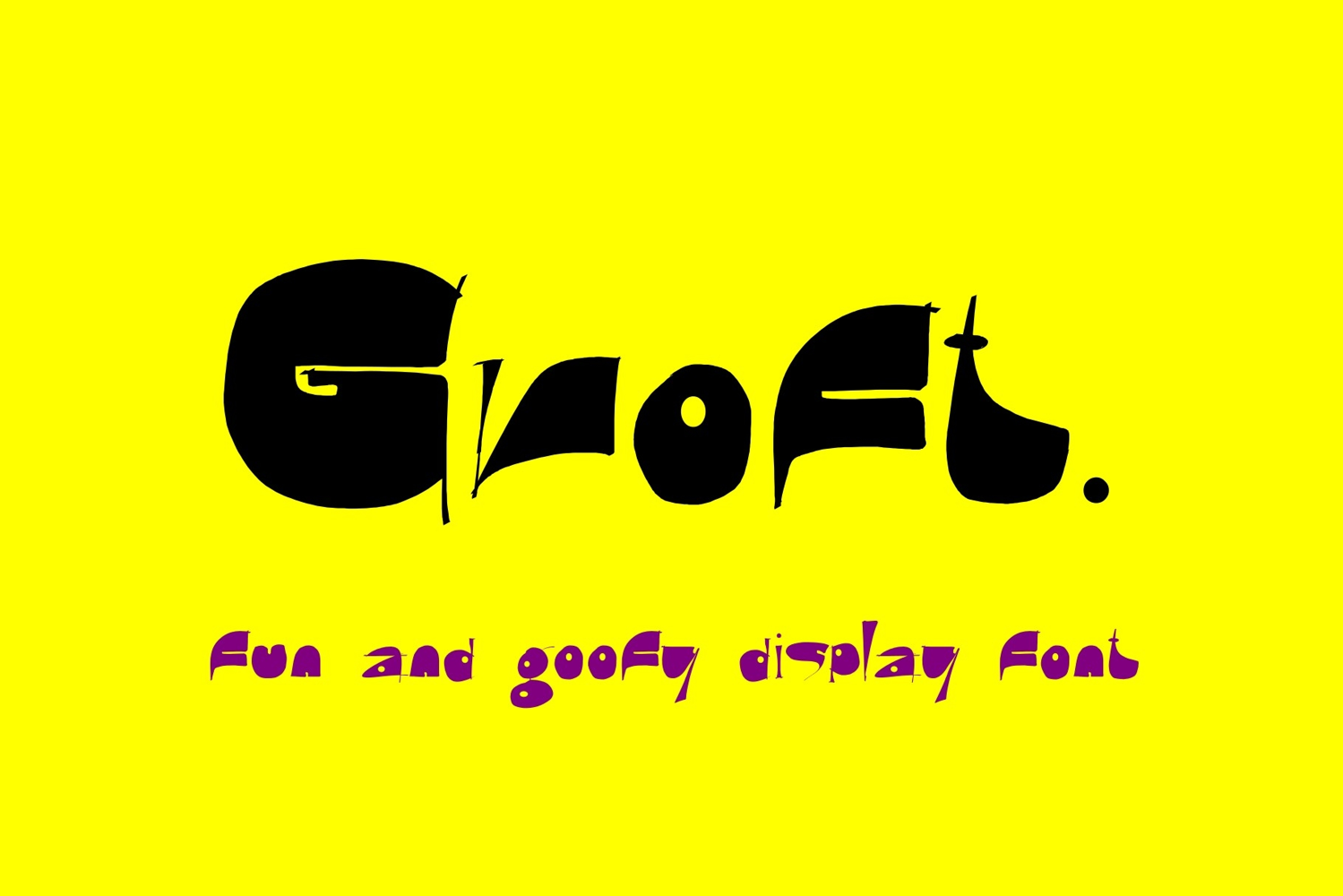
Groft
Presenting a delightful and entertaining display typeface, brimming with mirth and whimsy. This design exudes a cheerful, playful, and jocose air that is guaranteed to bring an element of fun to your projects. With its comically goofy aesthetics, this font certainly knows how to make a bold and light-hearted statement. Indulge in the spirit of fun and creativity with this unique display typeface.